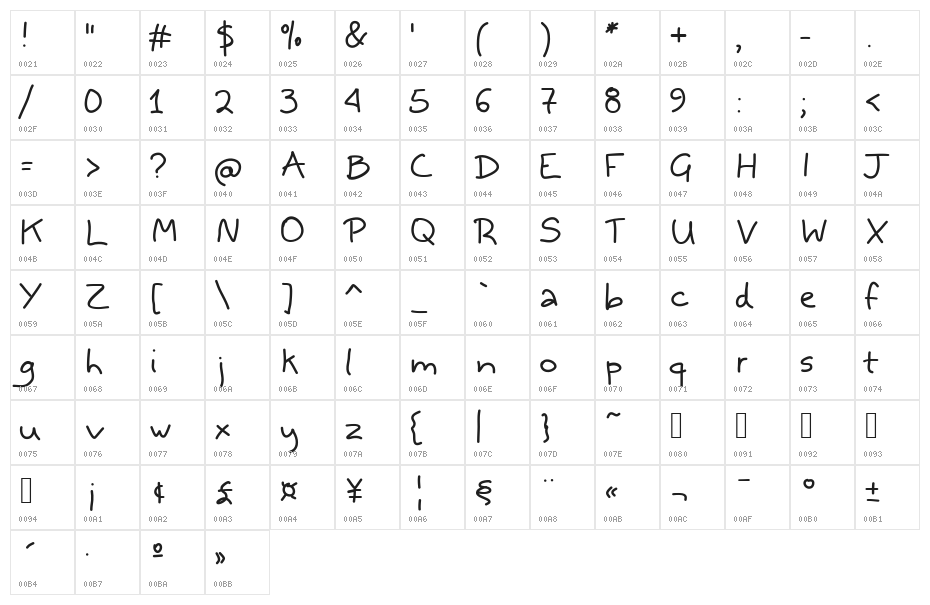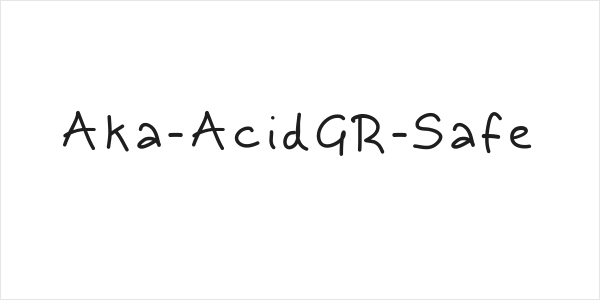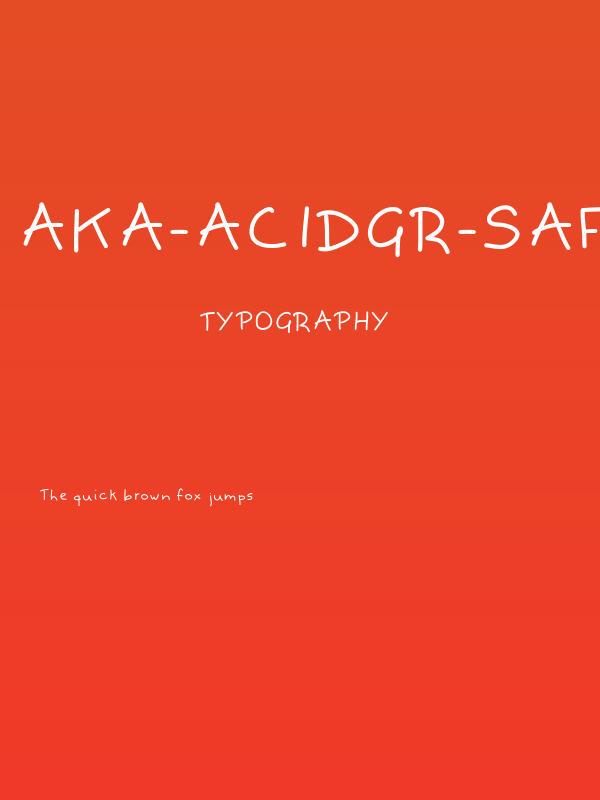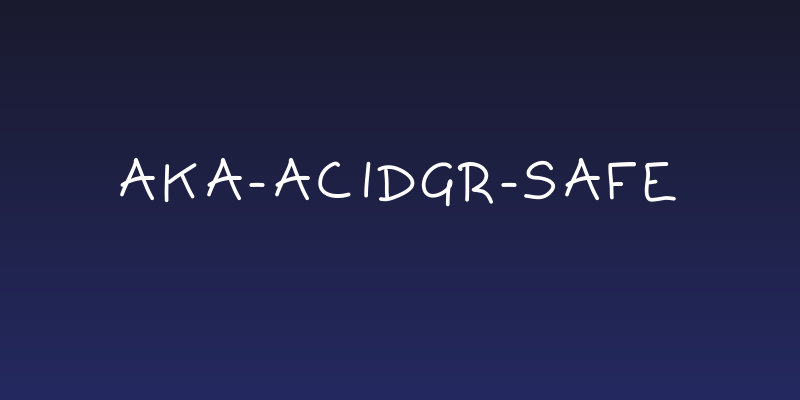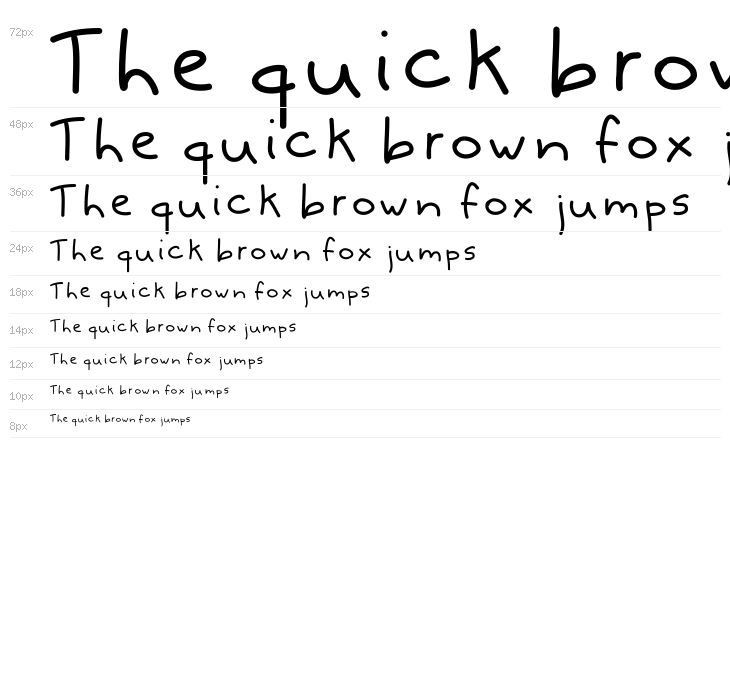
Aka-AcidGR-Safe Font
Aka-AcidGR-Safe Description
This font features a playful and informal handwritten style, characterized by its rounded and slightly irregular letterforms. The strokes are consistent in thickness, giving it a uniform appearance while maintaining a casual, friendly vibe. The uppercase and lowercase letters are well-balanced, with a slight slant that adds to the handwritten feel. The numerals are clear and easy to read, matching the overall style of the alphabet. Special characters are included, maintaining the same playful aesthetic. This font is versatile and can be used in various design contexts where a personal touch is desired.
| Proposed Projects | Ideal for greeting cards, children's books, casual branding, and social media graphics. |